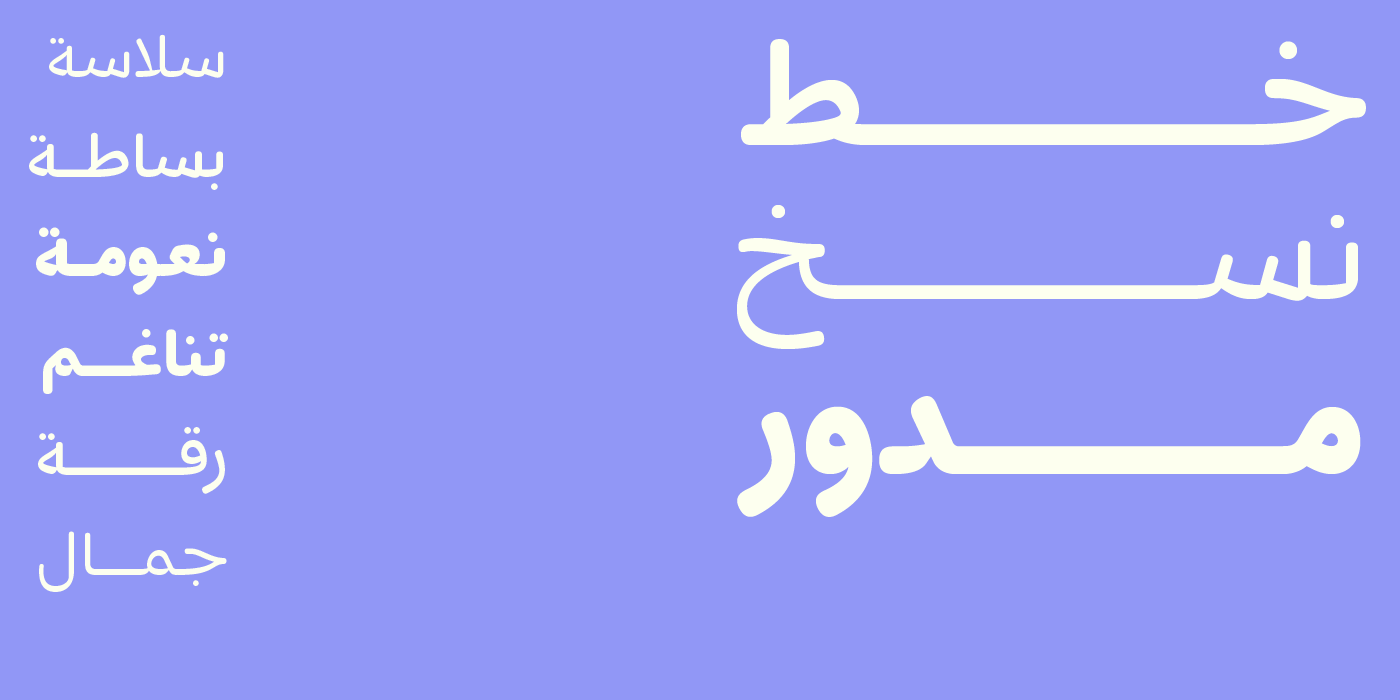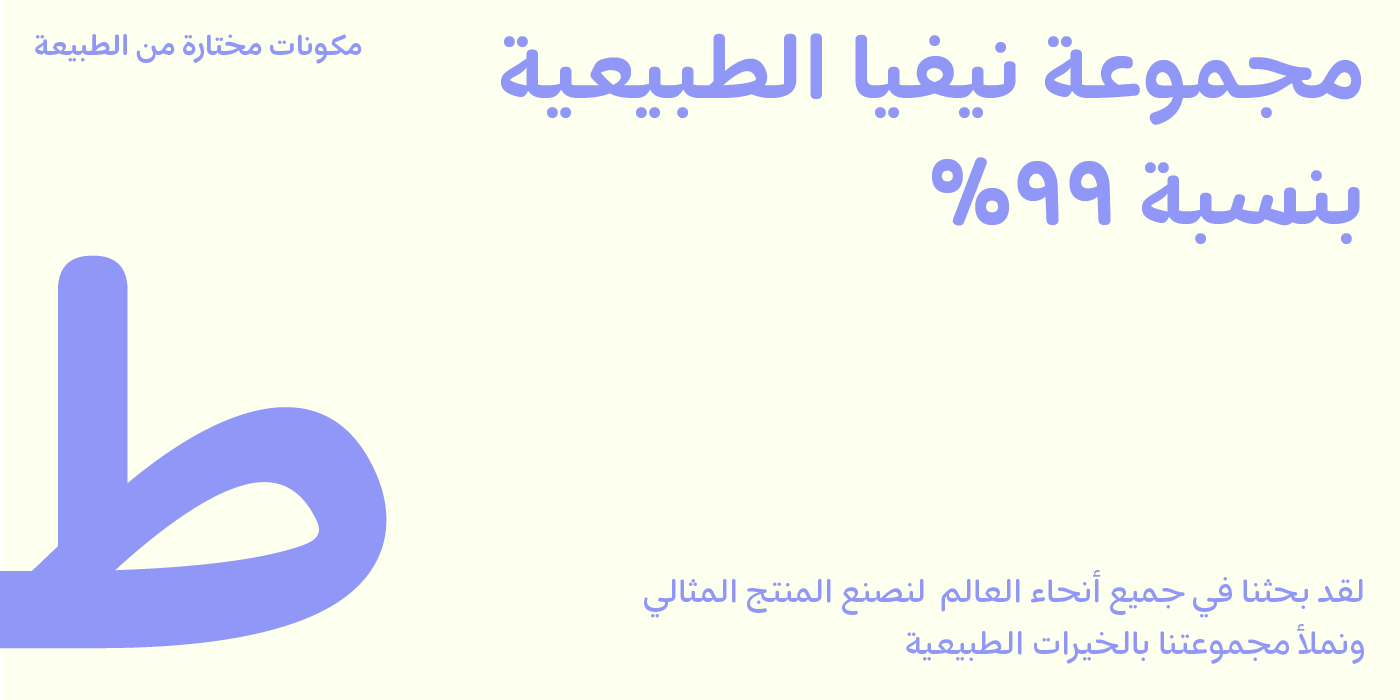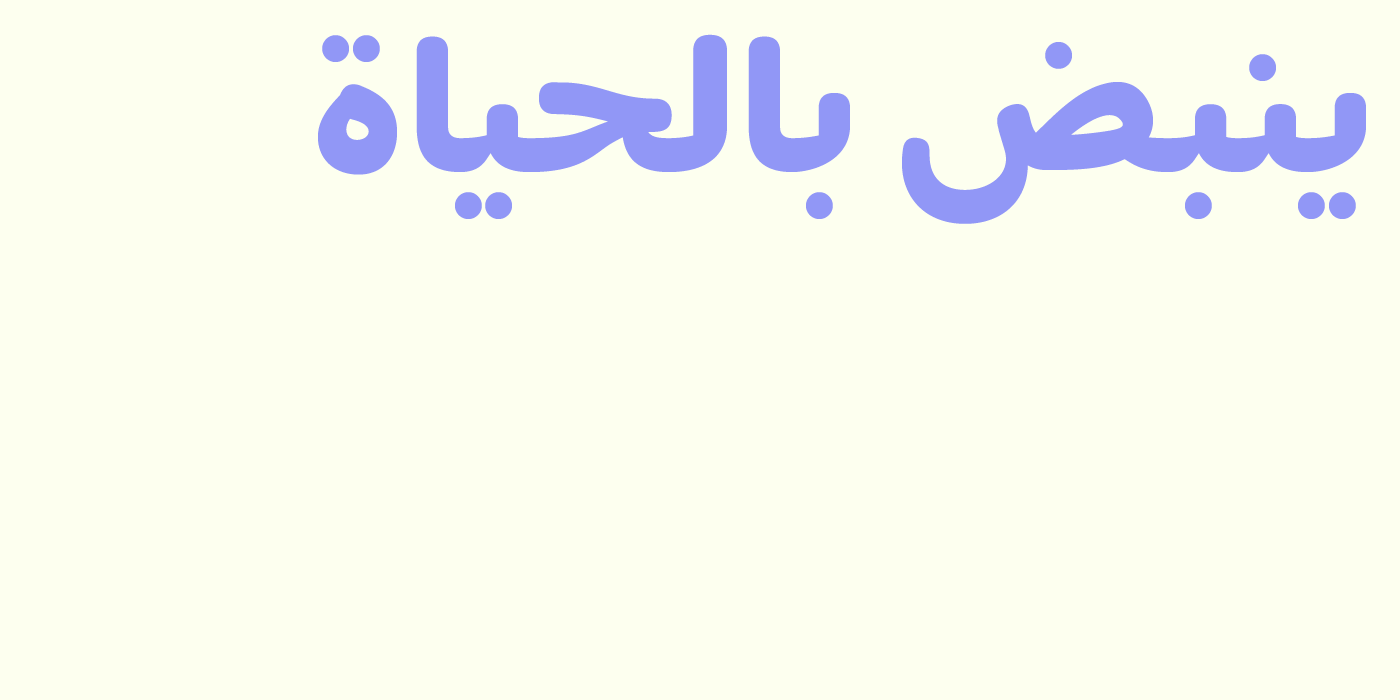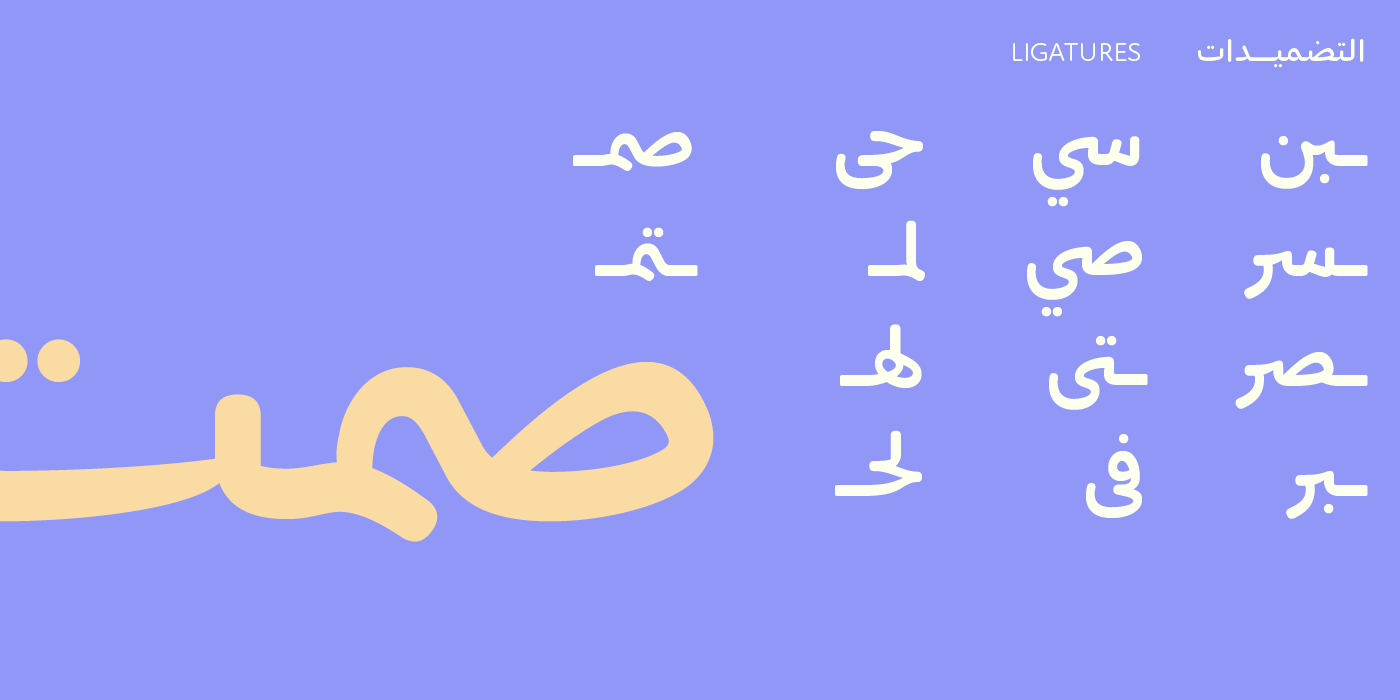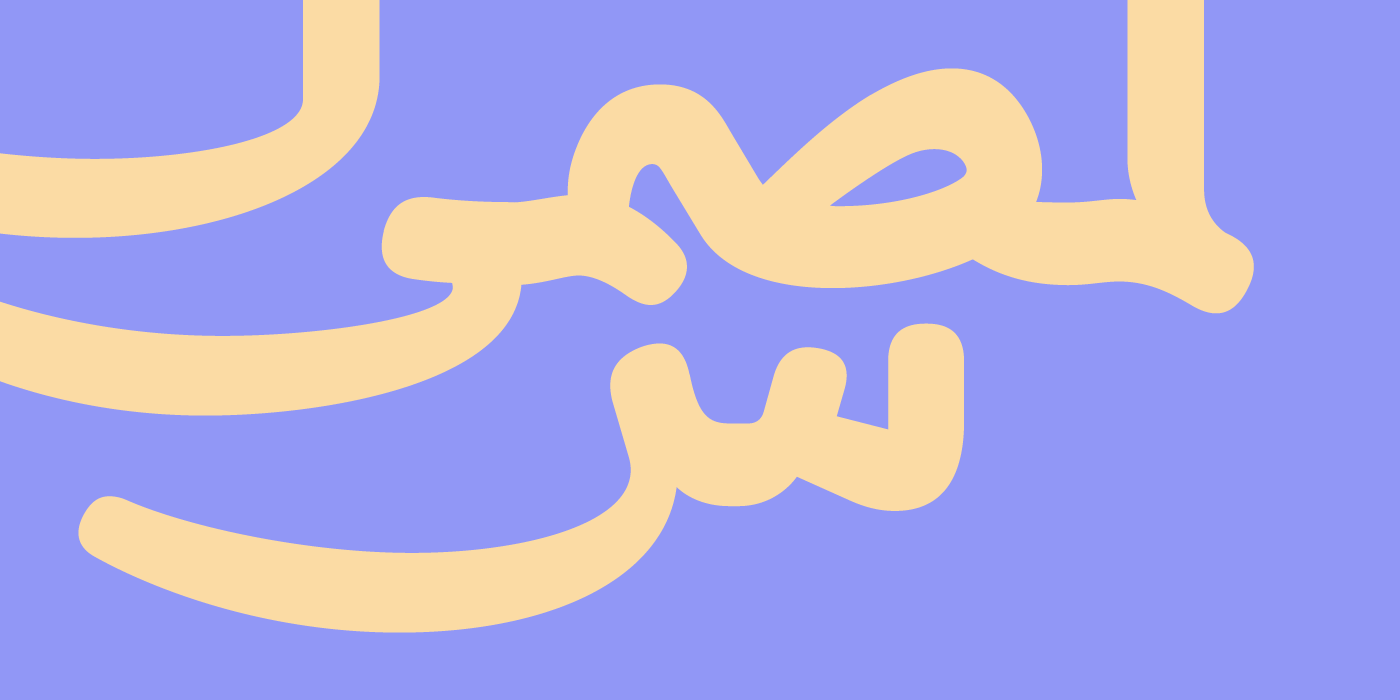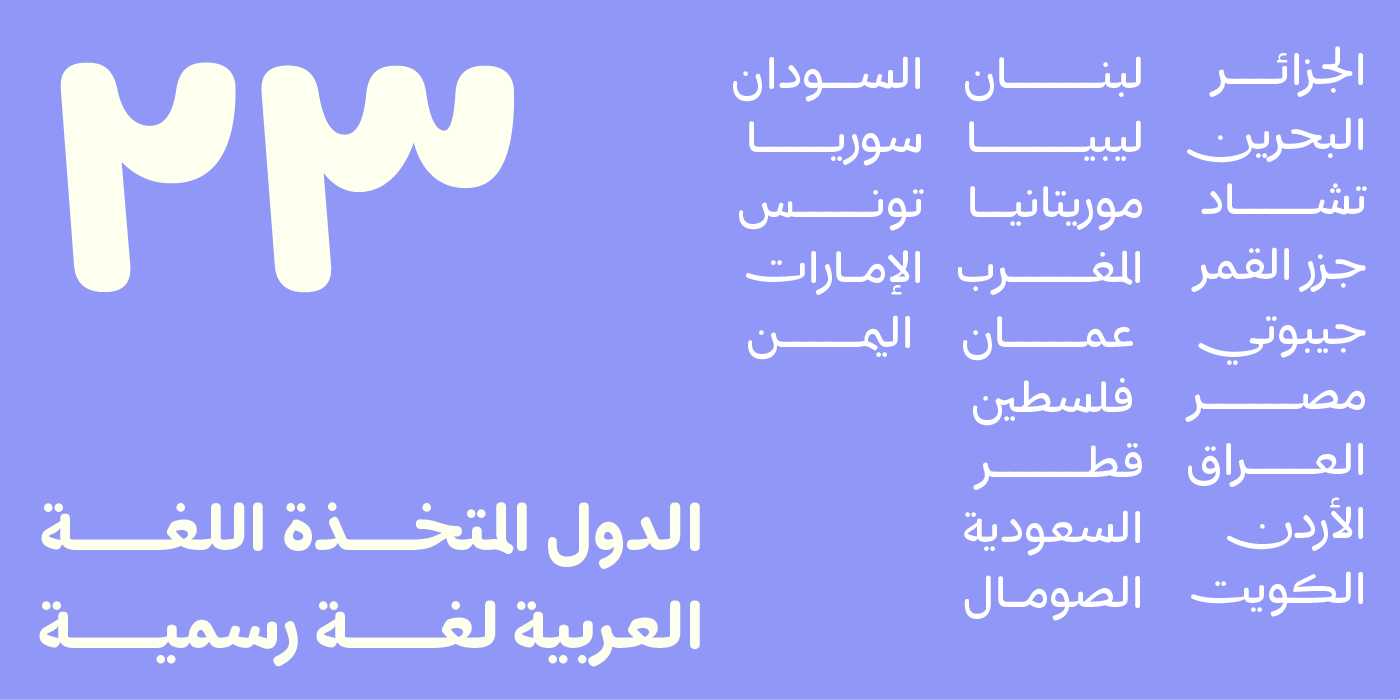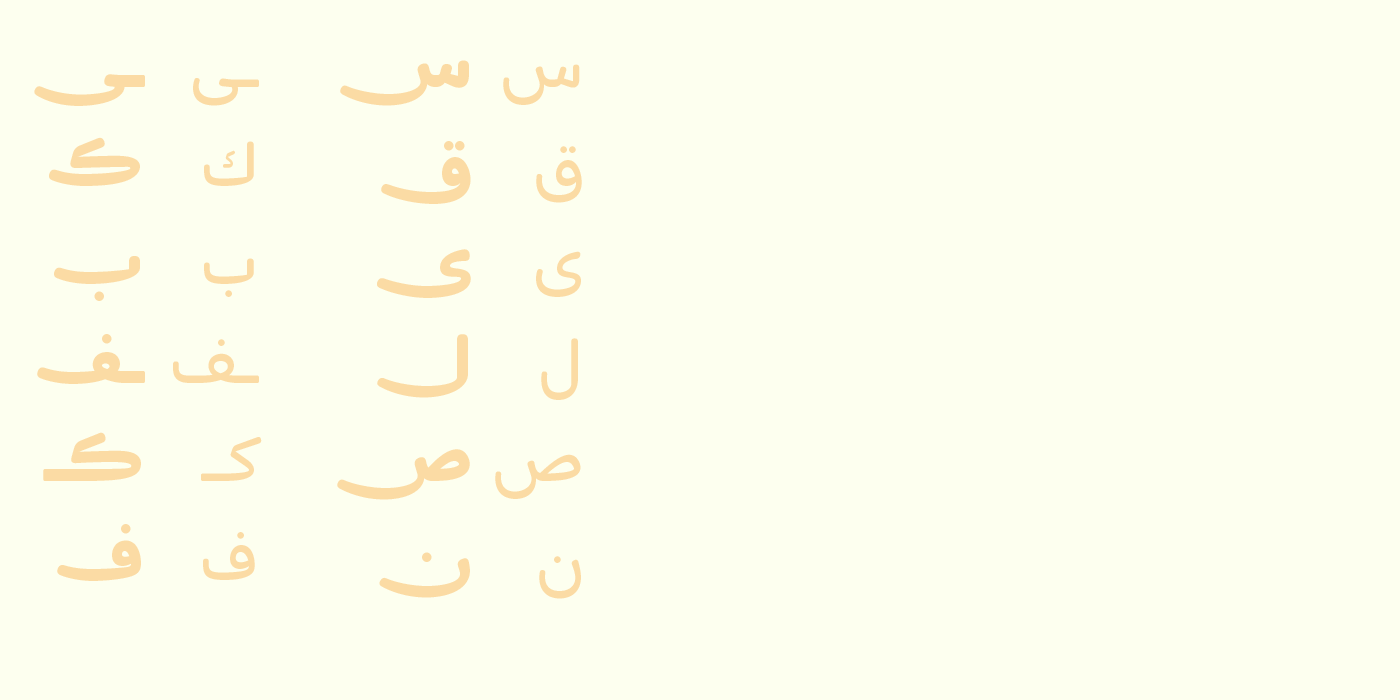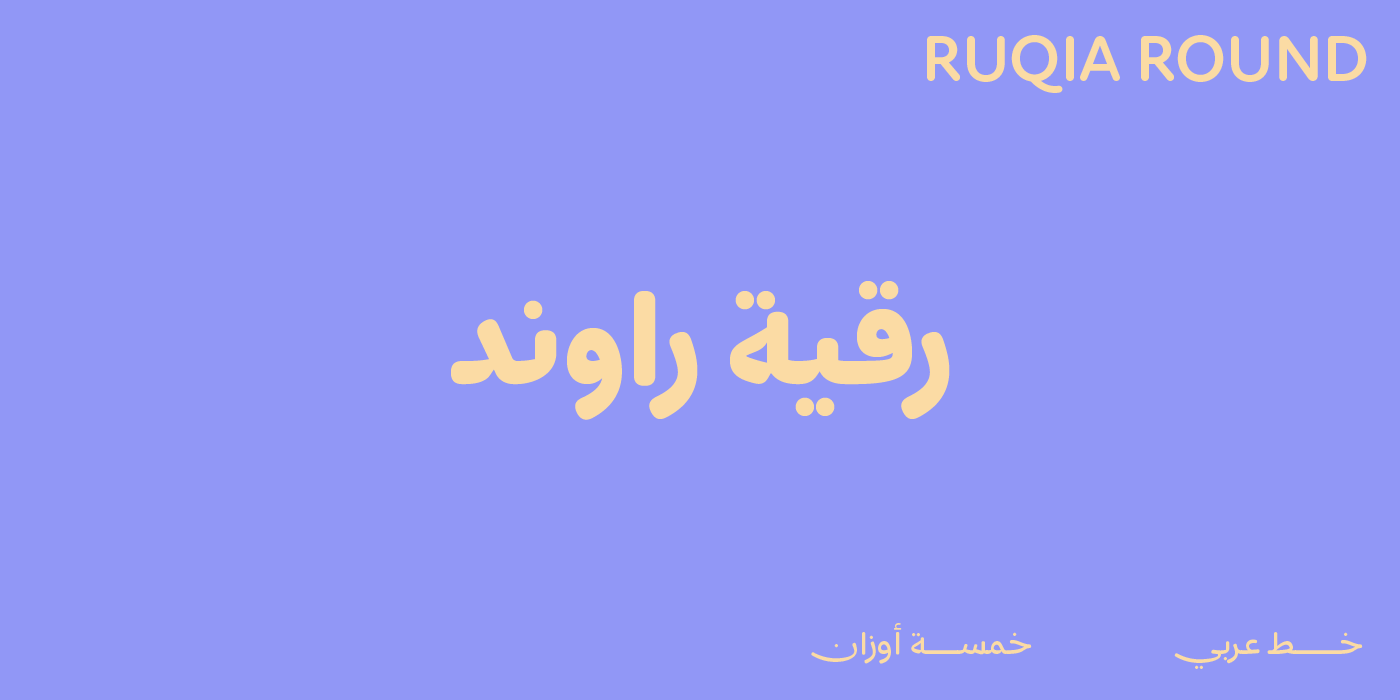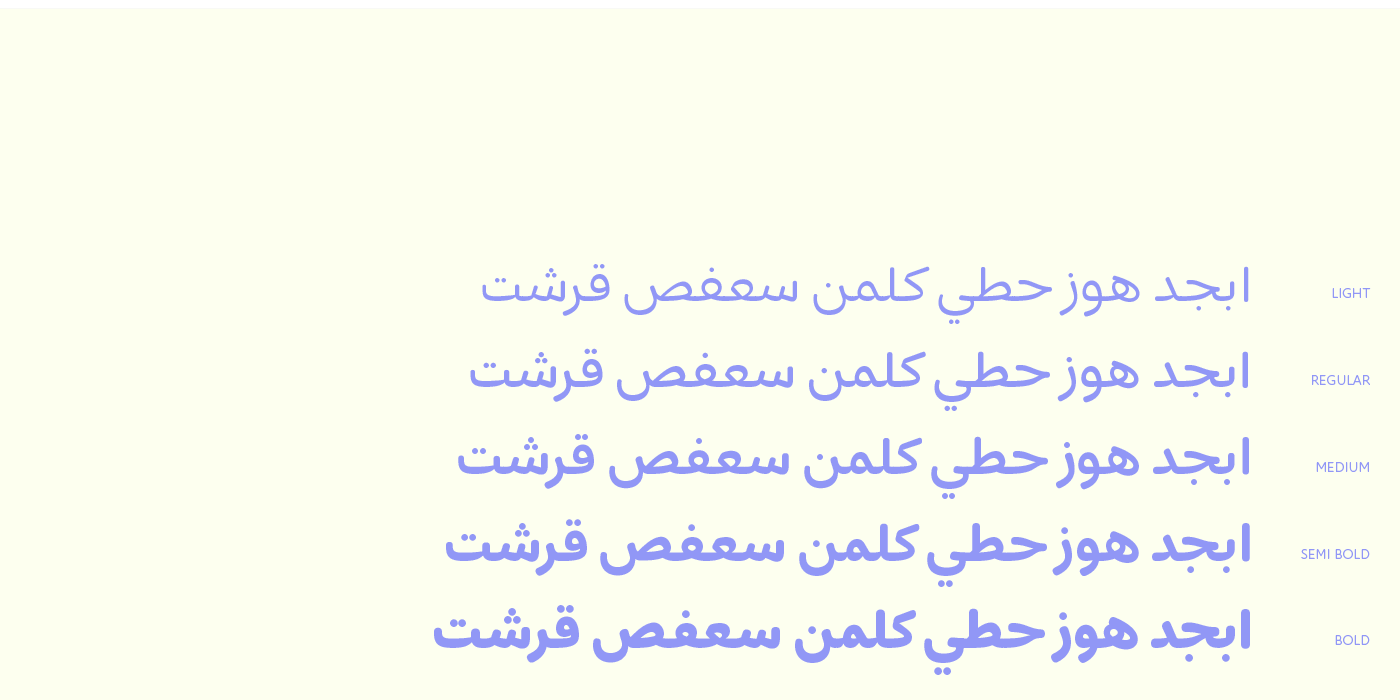
Ruqia round typeface - خط رقية راوند
- Ruqia Round: a modern Arabic typeface inspired by Naskh style - Clean and rounded design with soft curves - Consists of five weights for versatile usage - Simplified and legible, suitable for various design projects - Warm and approachable aesthetic - Ensures readability and consistency across different text sizes - Perfect for headlines, body text, and display purposes - Blends tradition and contemporary aesthetics seamlessly - Adds elegance and clarity to branding, editorial design, and digital interfaces.